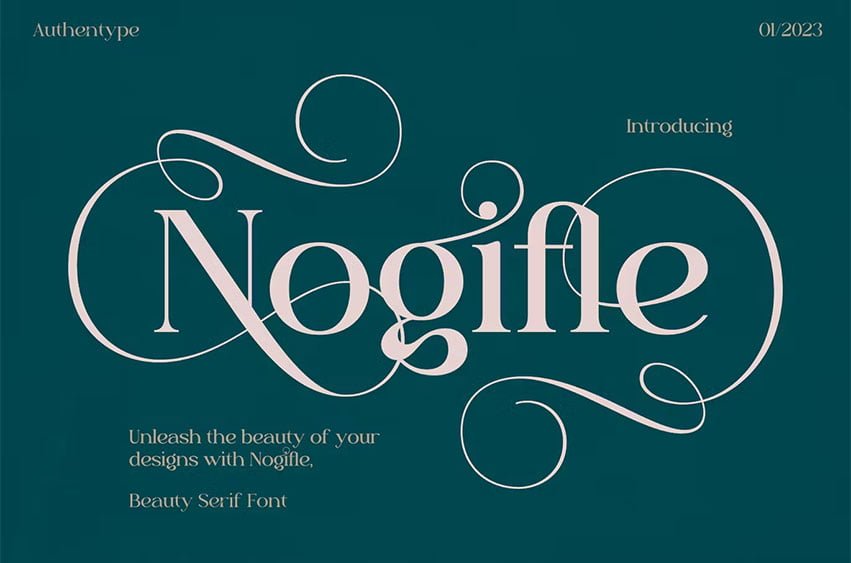
Nogifle Font Unleash the beauty of your designs with Nogifle, a stunning serif font featuring an abundance of ligatures and rich alternatives. The Nogifle serifs possess the fluidity of a script font, providing an elegant and unique look to your text.
Say goodbye to boring typography with Nogifle’s striking alternating indents. Upgrade your designs today with Nogifle.